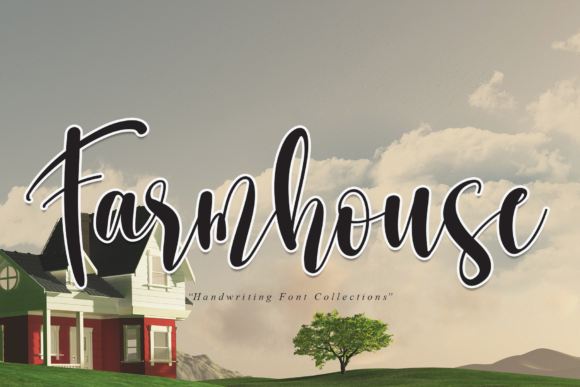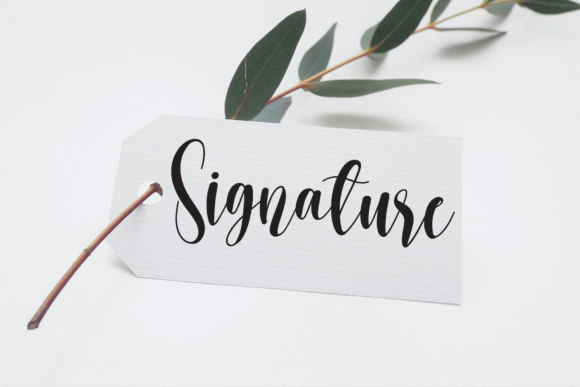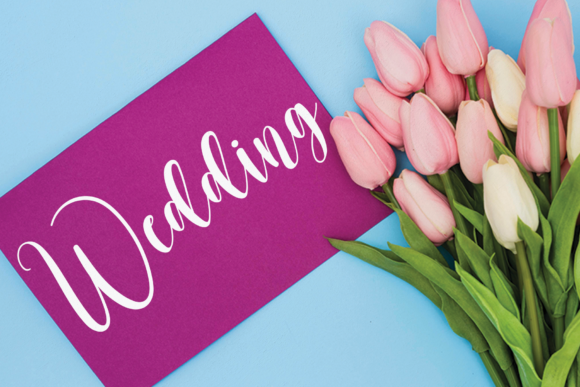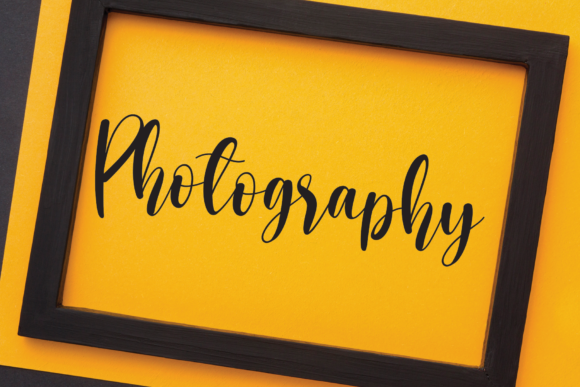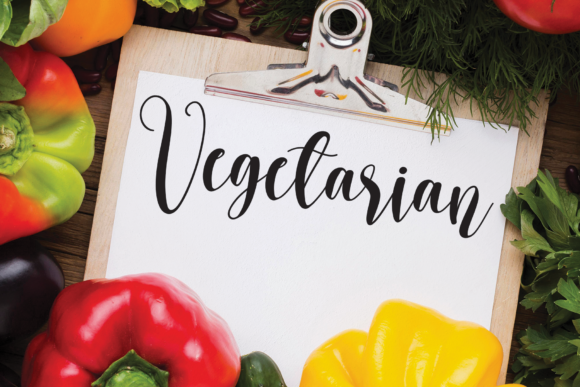
Farmhouse Font
About Farmhouse Font
Farmhouse is a beautiful and sweet calligraphy typeface with characters that dance along the baseline. It will add a luxury spark to any design project that you wish to create!